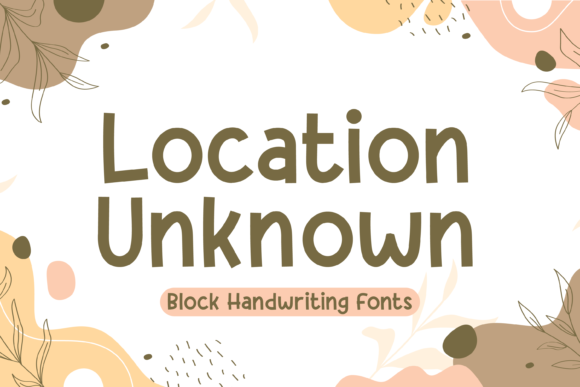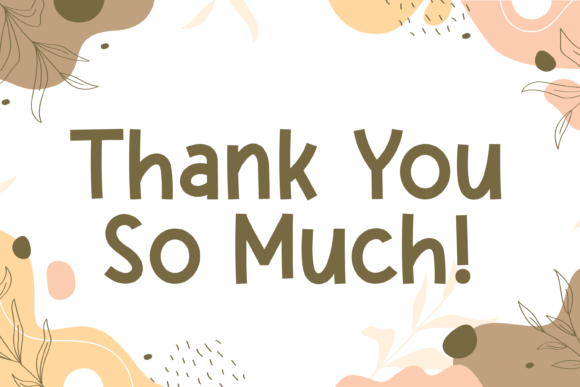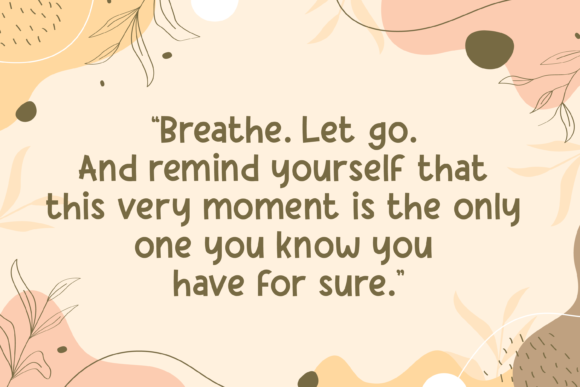
Location Unknown Font
About Location Unknown Font
Location Unknown is a cute and fun handwritten font that you can use for kids’ clothes, fashion, magazines, websites, branding, logos, book covers, and many more.